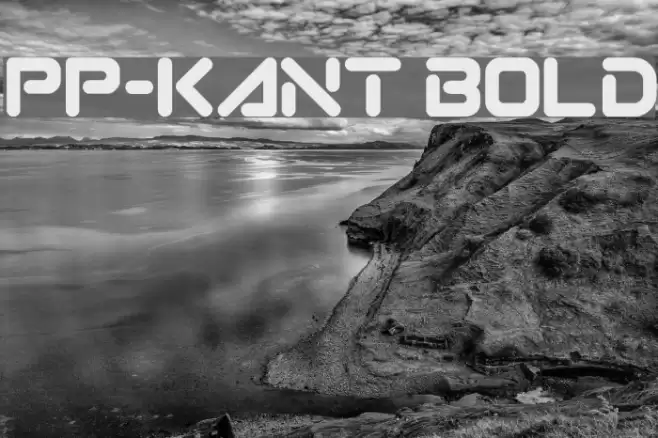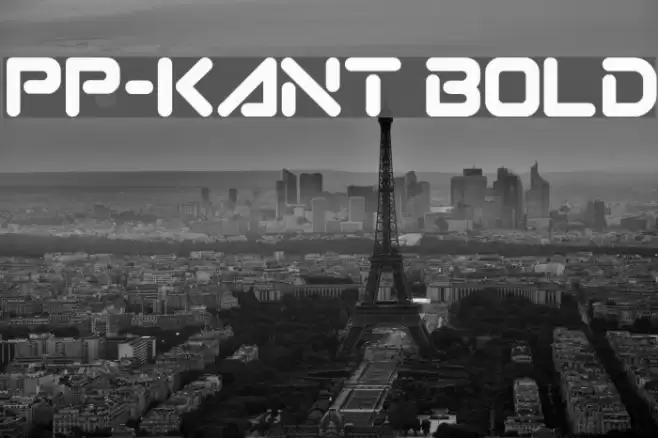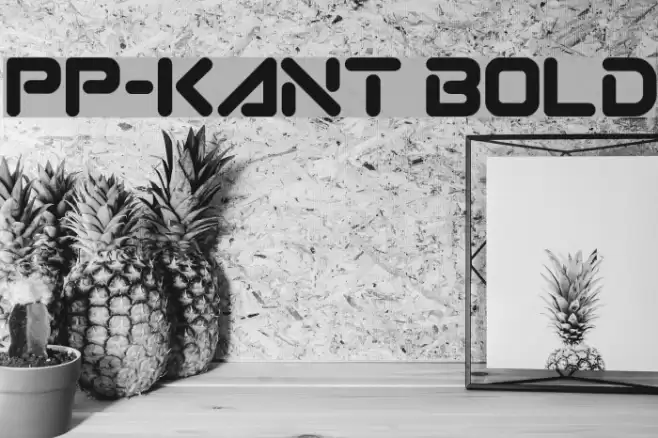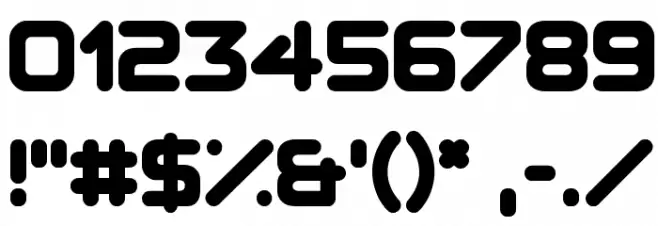
PP-Kant Bold Font
PP-Kant Bold Description
This font features a bold, geometric design with a futuristic aesthetic. The characters are constructed with rounded edges and consistent stroke widths, giving it a sleek and modern appearance. The uppercase letters are particularly striking, with a uniform height and width that create a cohesive look across the alphabet. The numerals and special characters maintain this style, ensuring a harmonious overall design. The font's boldness and unique character shapes make it ideal for attention-grabbing headlines and display purposes.
A bold, geometric font with a futuristic and modern design from Uncategorized fonts.
- Proposed Projects: Ideal for technology branding, sci-fi themed projects, modern posters, and digital interfaces.